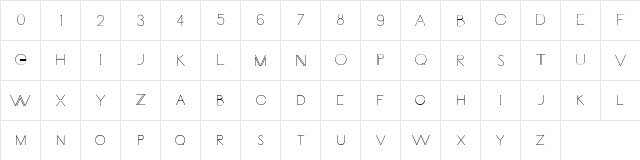
Carrinady Carrinady
Design Context for Carrinady Typeface
Carrinady is a composed and adaptable typeface that performs quietly and consistently across a wide range of design contexts.